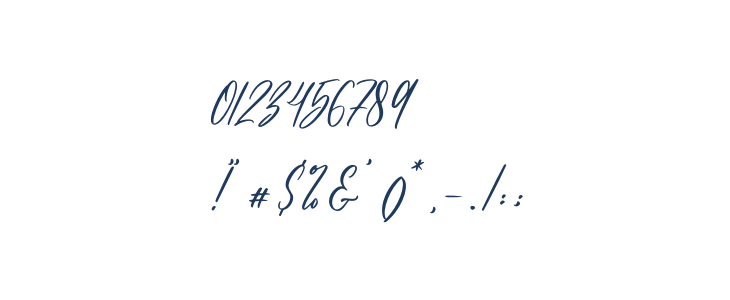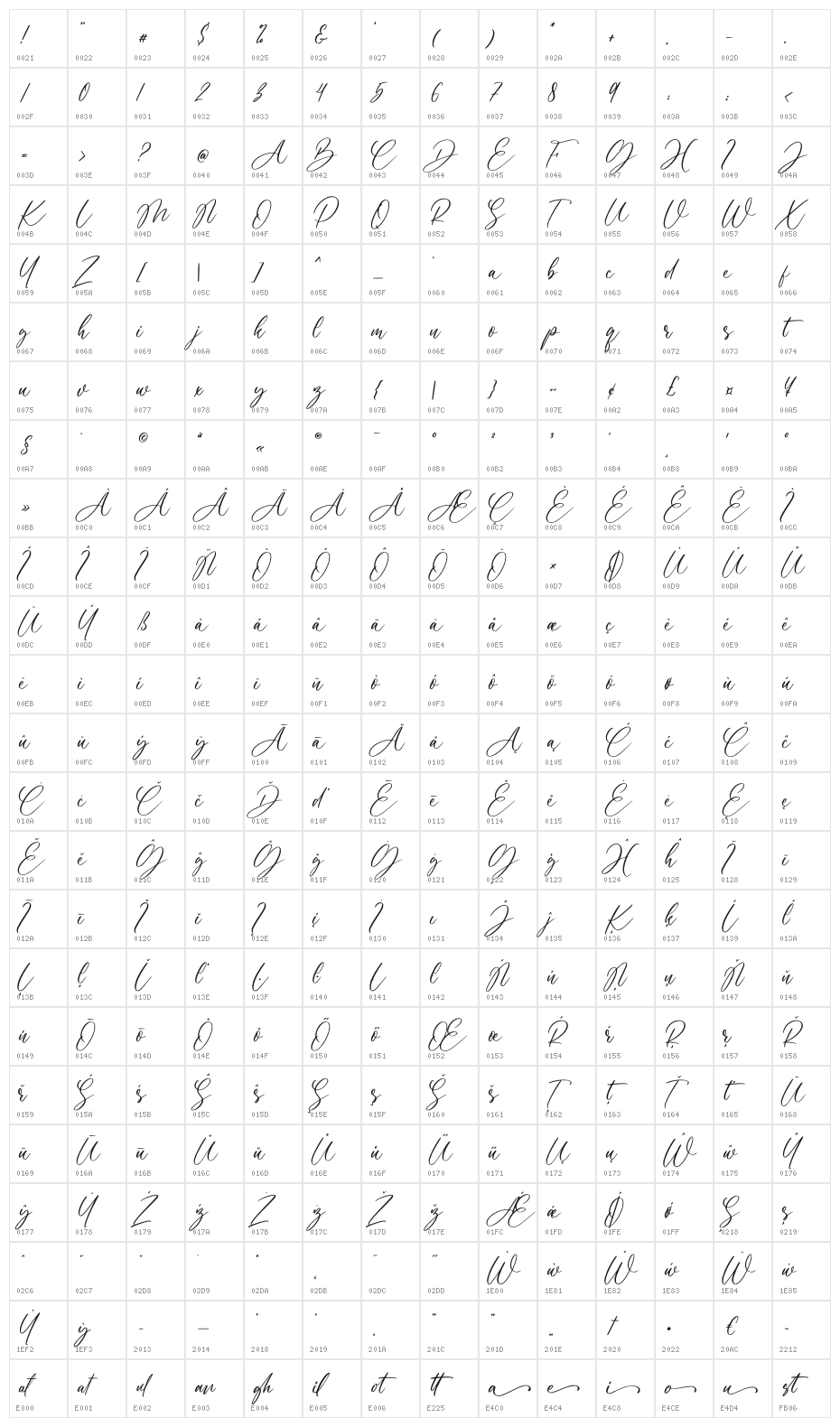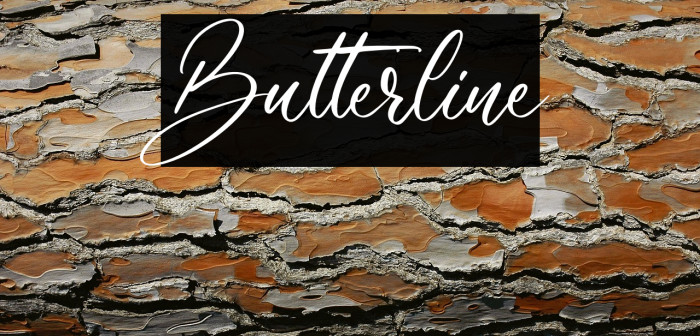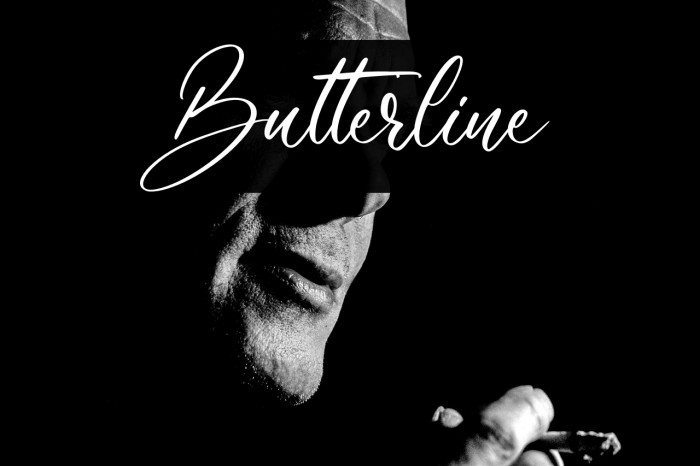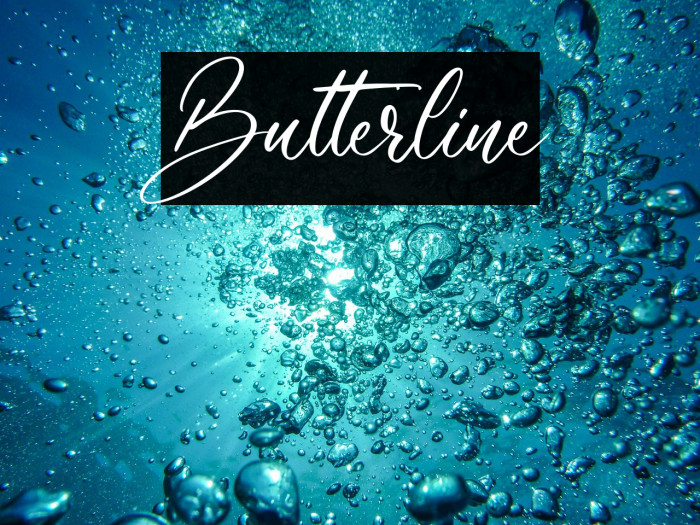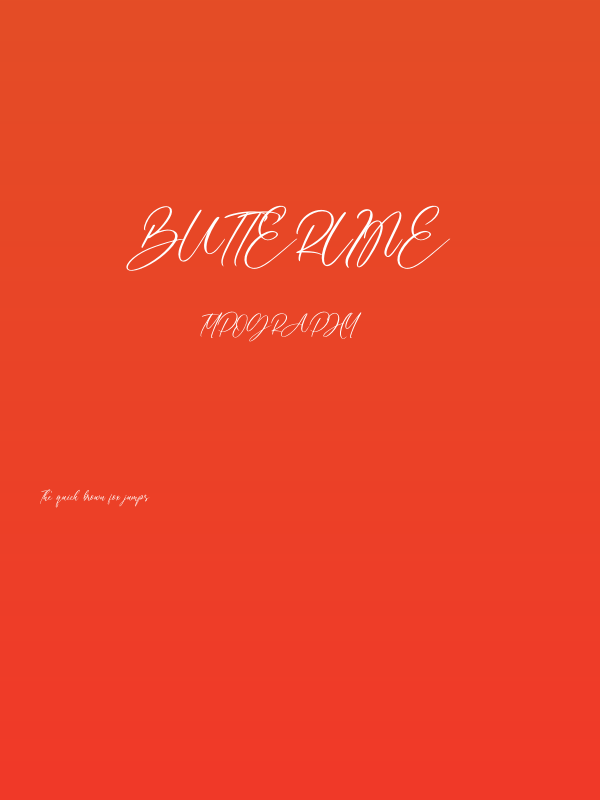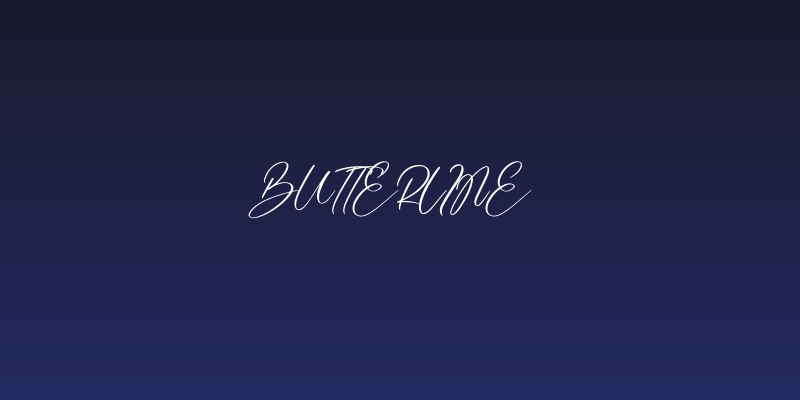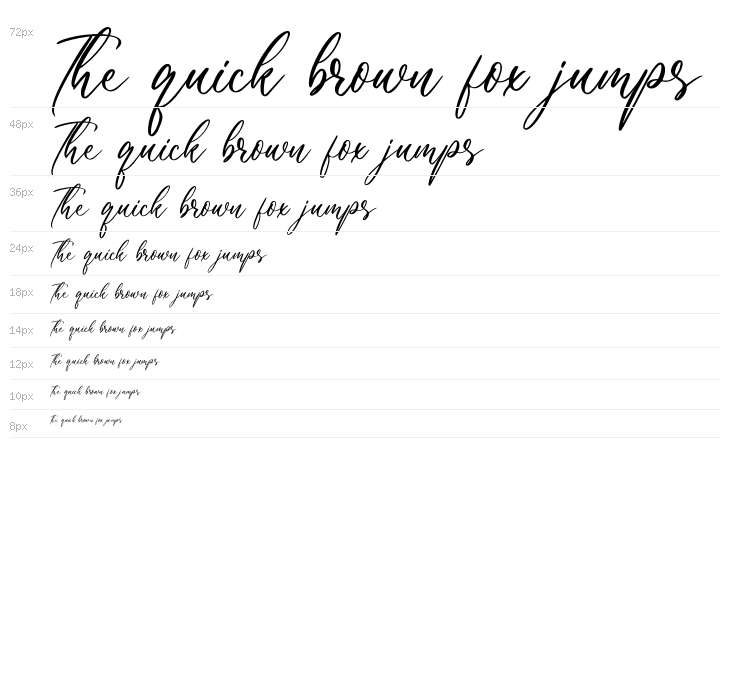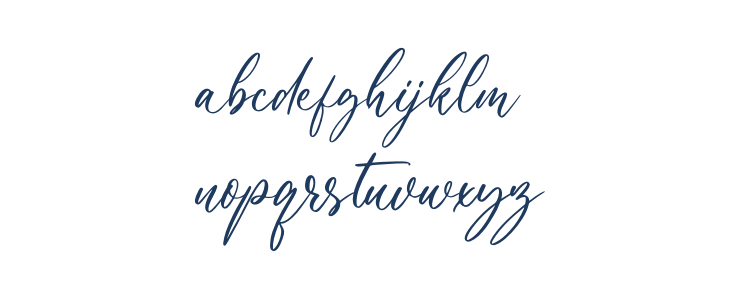
Butterline Font
This elegant script font features fluid, cursive strokes that create a sense of movement and grace. The uppercase letters are characterized by sweeping loops and flourishes, while the lowercase letters maintain a consistent flow with slightly less ornamentation. The numerals are styled to match the cursive nature of the alphabet, providing a cohesive look. Special characters are thoughtfully designed to complement the overall aesthetic. The font's delicate lines and artistic flair make it suitable for projects that require a touch of sophistication and elegance.
| Overall Style | Elegant |
| Use Case | Logos, Invitations, Decorative text |
| Proposed Projects | Ideal for wedding invitations, elegant branding, greeting cards, and decorative signage. |